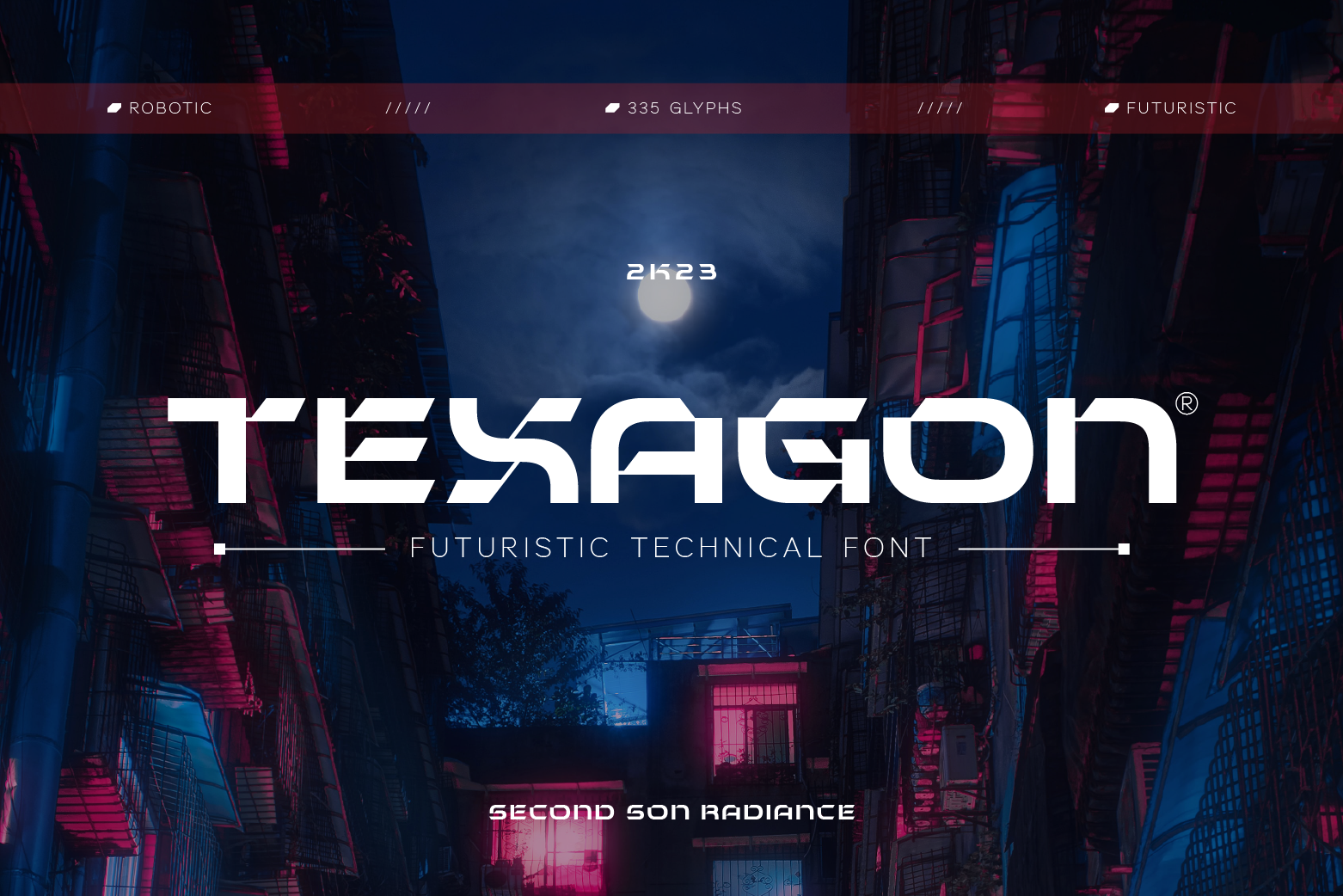
SS Texagon - Scifi Font
Texagon Futuristic Sci-Fi serif Font is perfect for your upcoming projects such as logo branding, editorial design, esport design, 80s retro design, gaming industry, music poster, website design, modern advertising design and so much more.